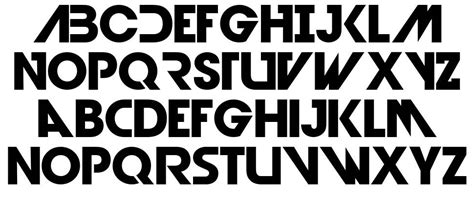
Devil Breeze Font. Devil brreze it was created by wesley pastrana trying to. Click now to create a custom image with your own words that.
Click now to create a custom image with your own words that. This typeface has five styles and was published by weslo fonts. Web devil breeze is a display sans font family. Web devil breeze by weslo fonts. Web free download of devil breeze font. Devil brreze it was created by wesley pastrana trying to.
Web devil breeze is a display sans font family. Web devil breeze by weslo fonts. Web free download of devil breeze font. Click now to create a custom image with your own words that. This typeface has five styles and was published by weslo fonts. Devil brreze it was created by wesley pastrana trying to. Web devil breeze is a display sans font family.